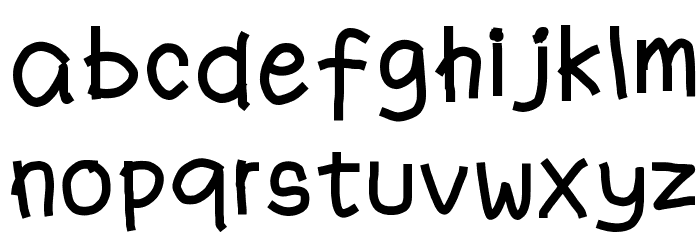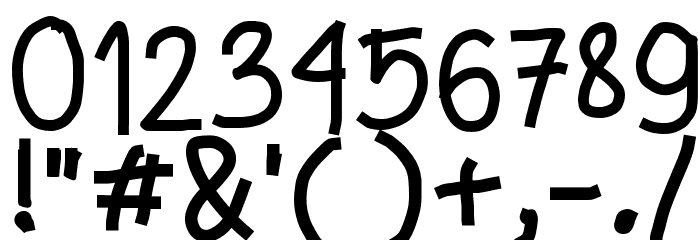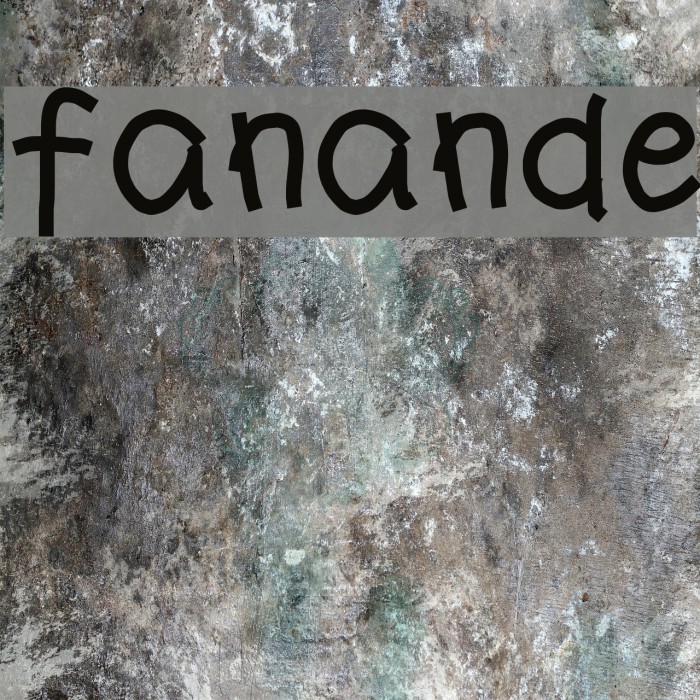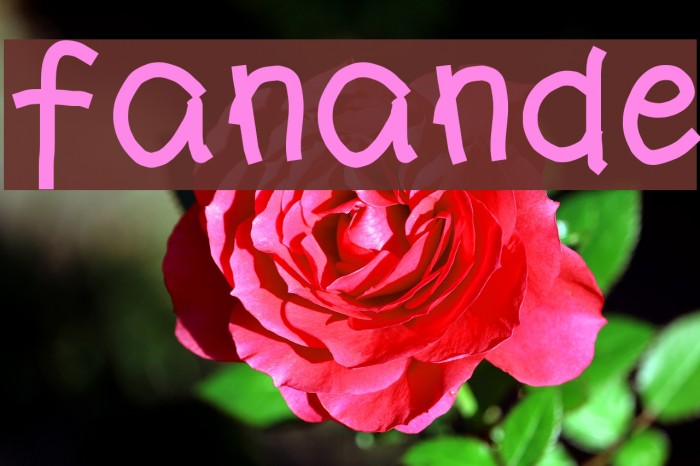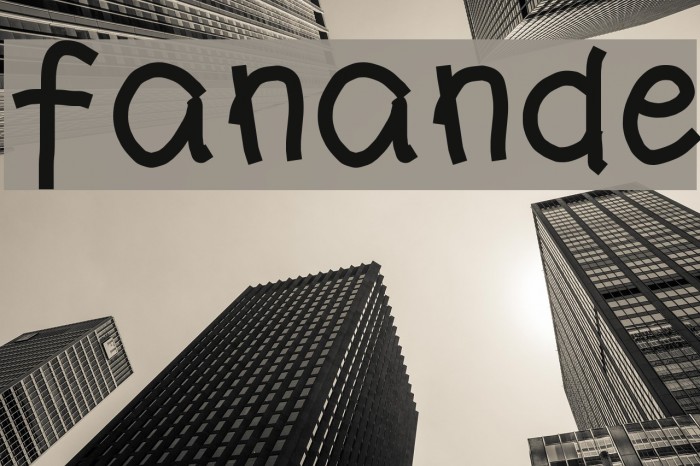
fanande Font
This font features a playful and informal style, characterized by its hand-drawn appearance. The letters have a casual, slightly uneven quality, giving them a friendly and approachable feel. The strokes are moderately thick, with a consistent weight throughout, contributing to its readability. The characters are well-spaced, ensuring clarity and legibility even at smaller sizes. The font includes a full set of uppercase and lowercase letters, numbers, and a variety of special characters, making it versatile for different uses. Its whimsical nature makes it suitable for projects that require a personal touch or a fun, lighthearted vibe.
A playful, hand-drawn font with a casual and friendly style.
- Proposed Projects: Ideal for children's books, greeting cards, playful branding, and informal invitations.
- Overall Style: Casual
- Use Case: Headlines, Logos, Informal Text